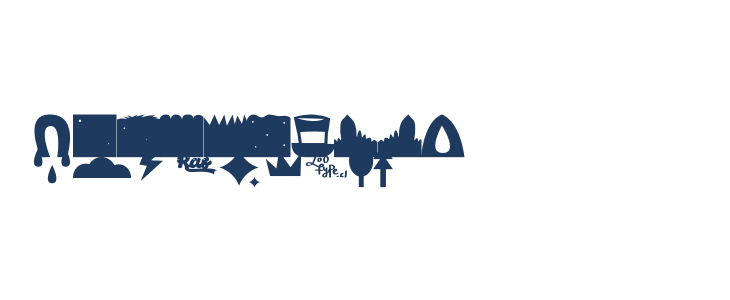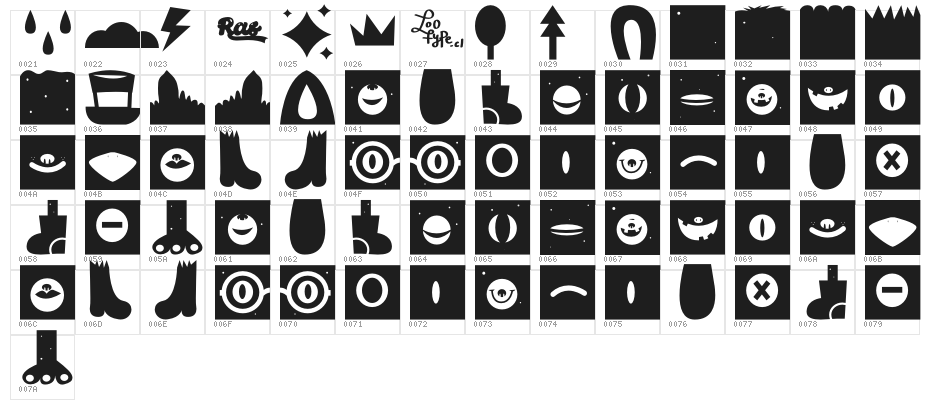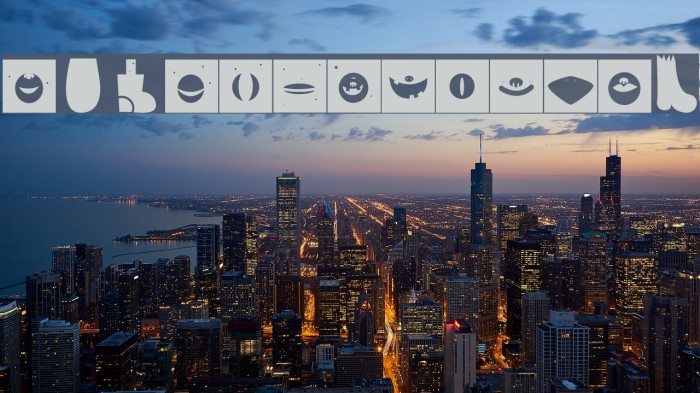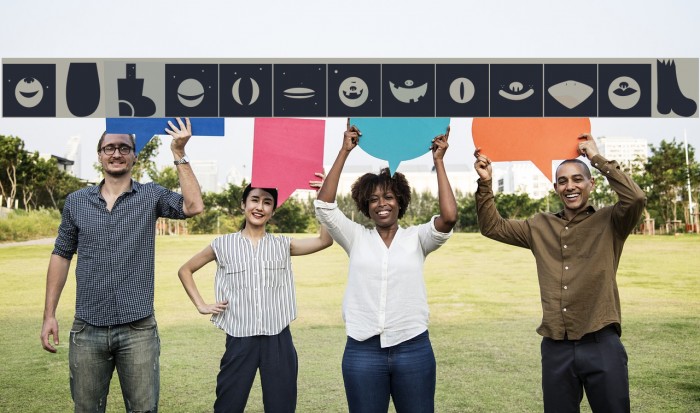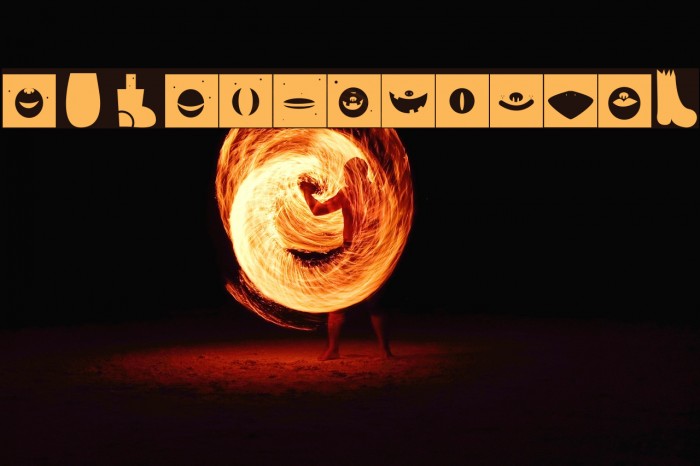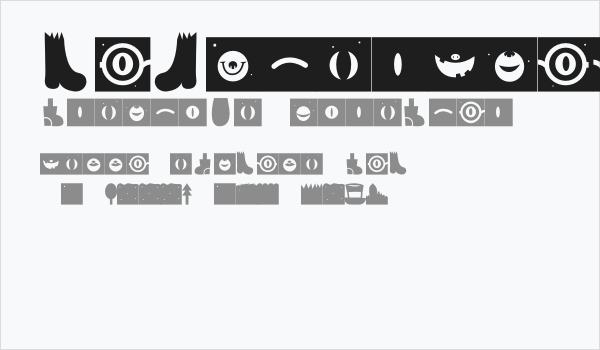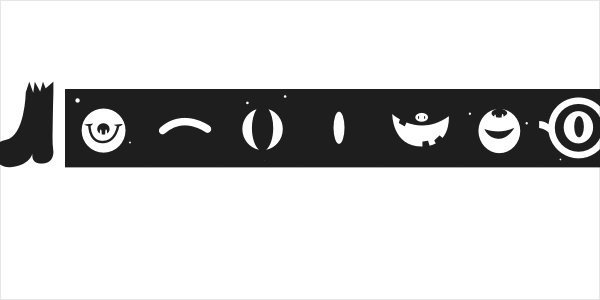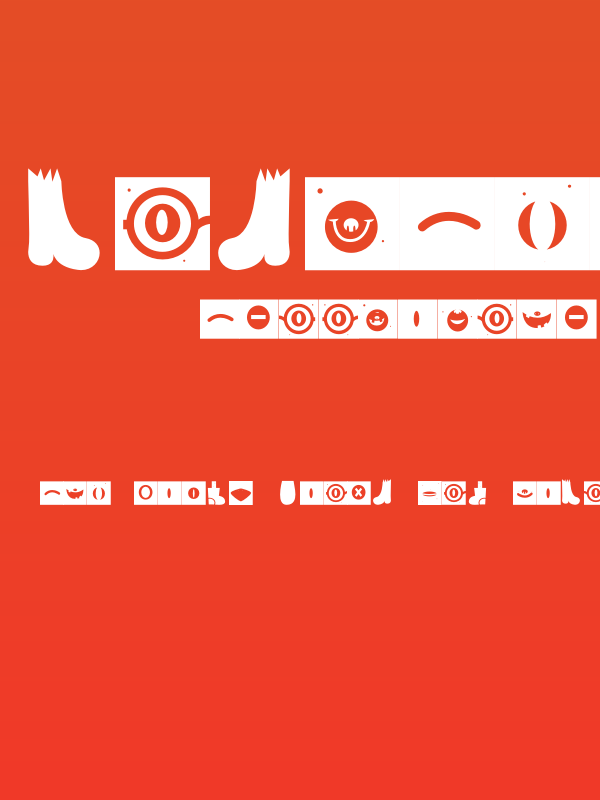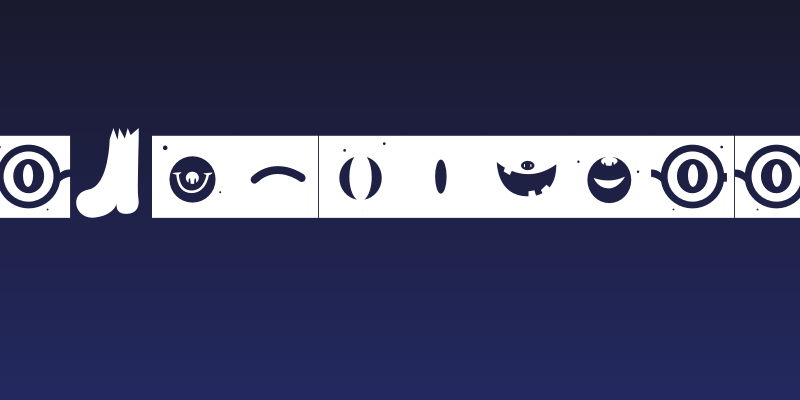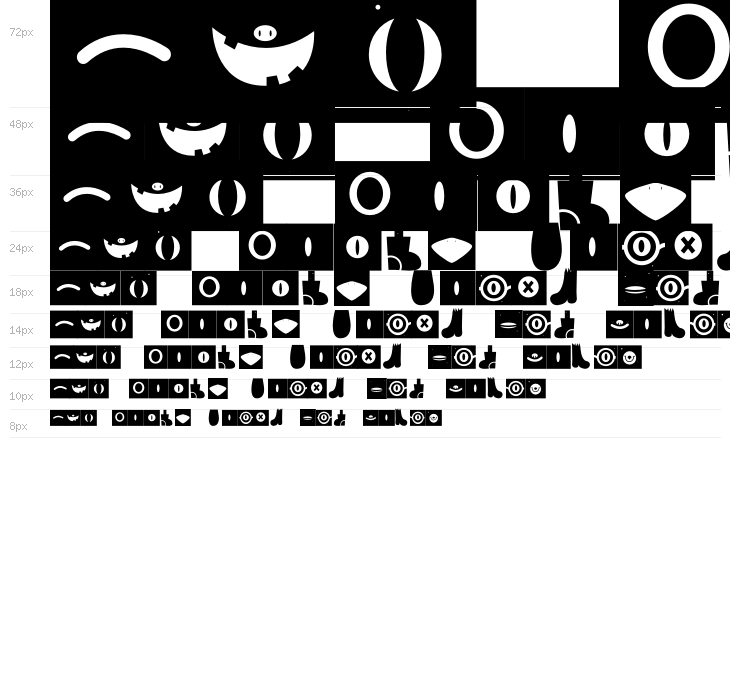
MonsterHappy Font
MonsterHappy Description
This is a playful and whimsical decorative font featuring a variety of monster-themed glyphs. Each character is represented by a unique monster face or body part, creating a fun and engaging visual experience. The font includes a mix of circular, oval, and angular shapes, with bold outlines and filled silhouettes. The characters are designed to convey a sense of humor and creativity, making them ideal for projects that require a lighthearted and imaginative touch. The font's unique style is perfect for children's books, party invitations, or any design that aims to capture a sense of fun and fantasy.
| Proposed Projects | Children's books, party invitations, playful posters, fantasy-themed designs. |